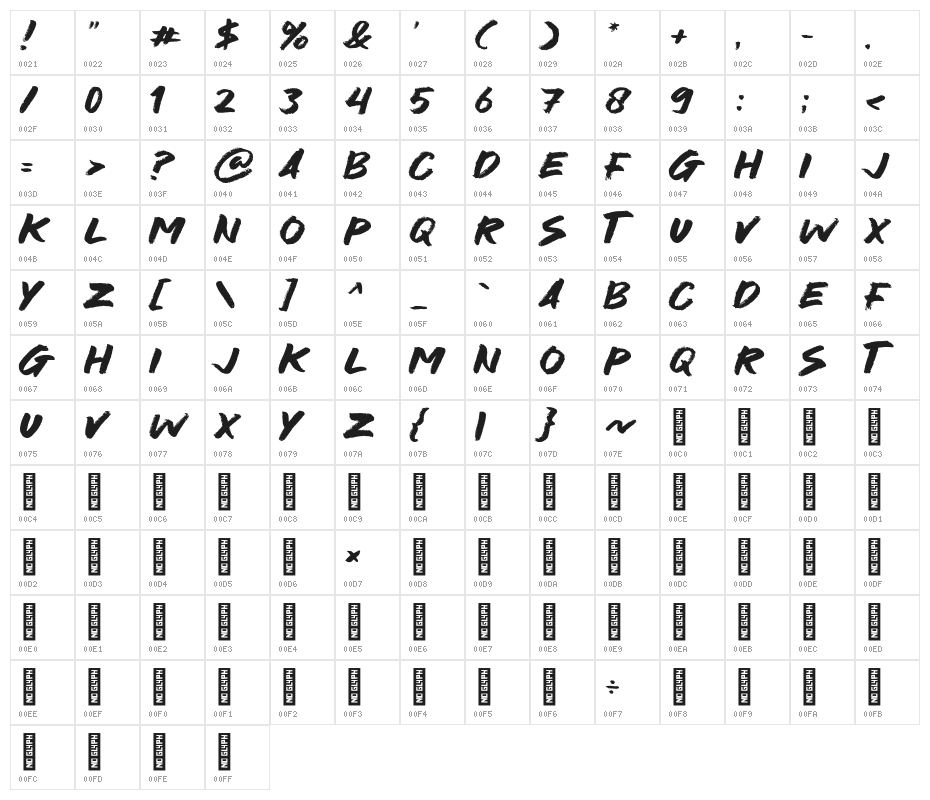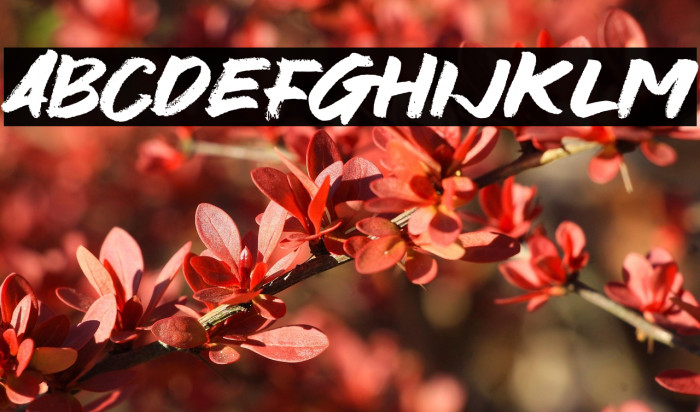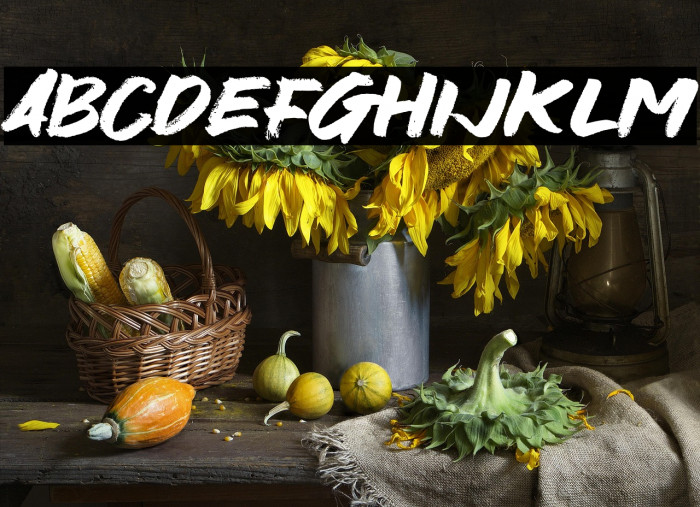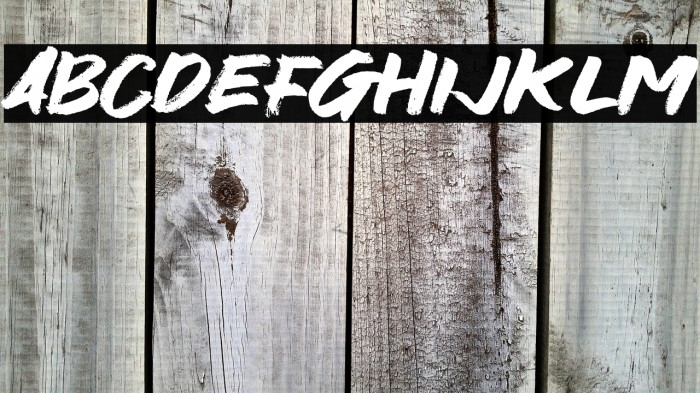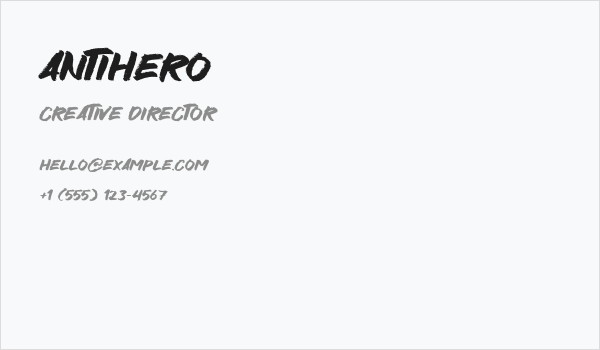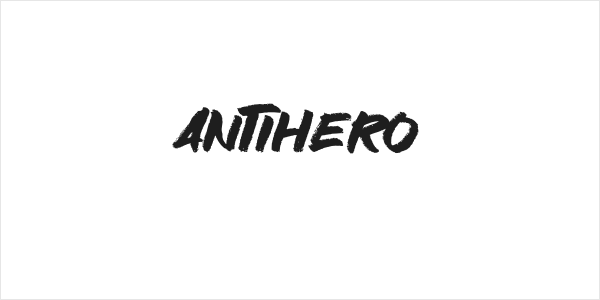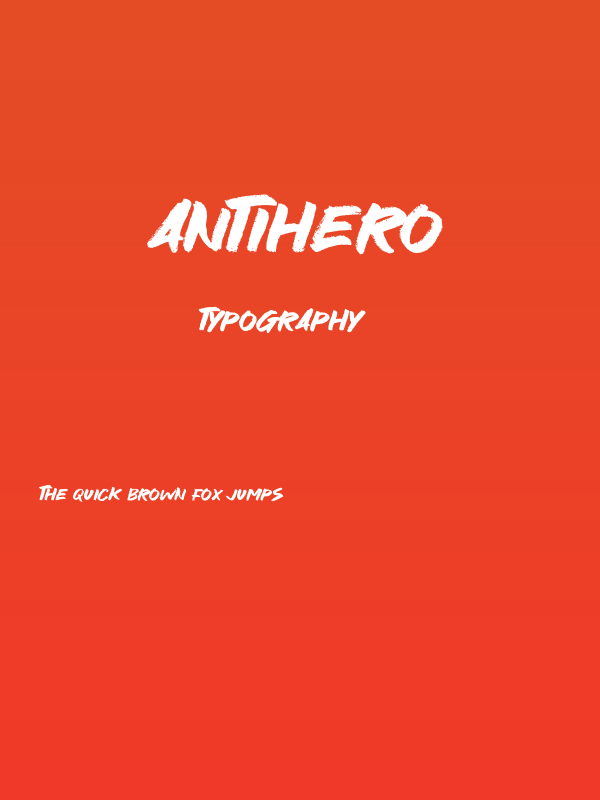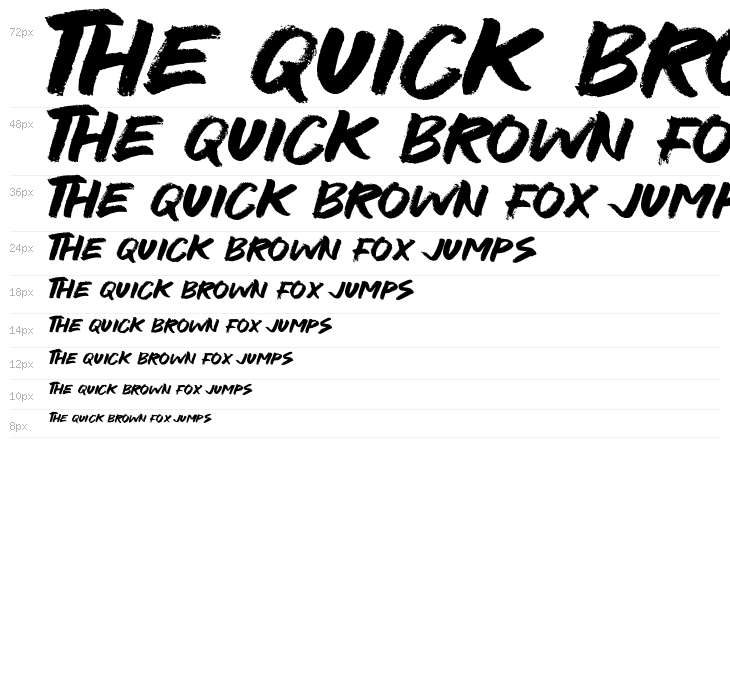
Antihero Font
Antihero Description
This font exudes a bold and dynamic energy, characterized by its brush-like strokes and expressive style. The letters are crafted with a rough, textured appearance, giving them a hand-painted feel. Each character is distinct, with varying thicknesses that add to the font's lively and spontaneous nature. The uppercase and lowercase letters maintain a consistent style, while the numerals and special characters complement the overall aesthetic. This font is perfect for projects that require a touch of creativity and flair, making it ideal for artistic and unconventional designs.
| Overall Style | Modern, Artistic |
| Proposed Projects | Ideal for posters, album covers, branding, and creative design projects. |